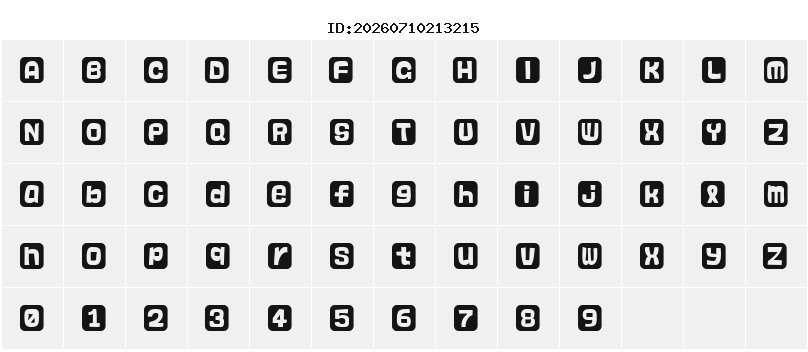
hanko Preview
• Font Name: hanko
• Full Font Name: hanko
• PostScript Name: Hanko
About hanko.ttf
hanko.ttf is a modern, elegant sans-serif font designed for ultimate readability and visual harmony. Perfect for branding, headlines, web design, and print materials.